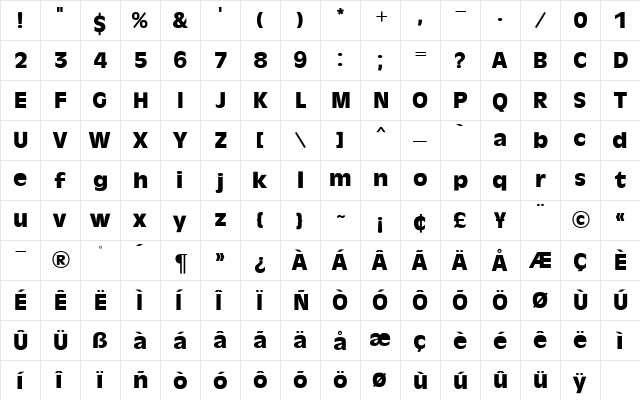
Olive MN Bold Bold
Design Context for Olive MN Bold Typeface
Olive MN Bold is a composed and adaptable typeface that performs quietly and consistently across a wide range of design contexts. Its bold stroke weight gives it real presence on the page.